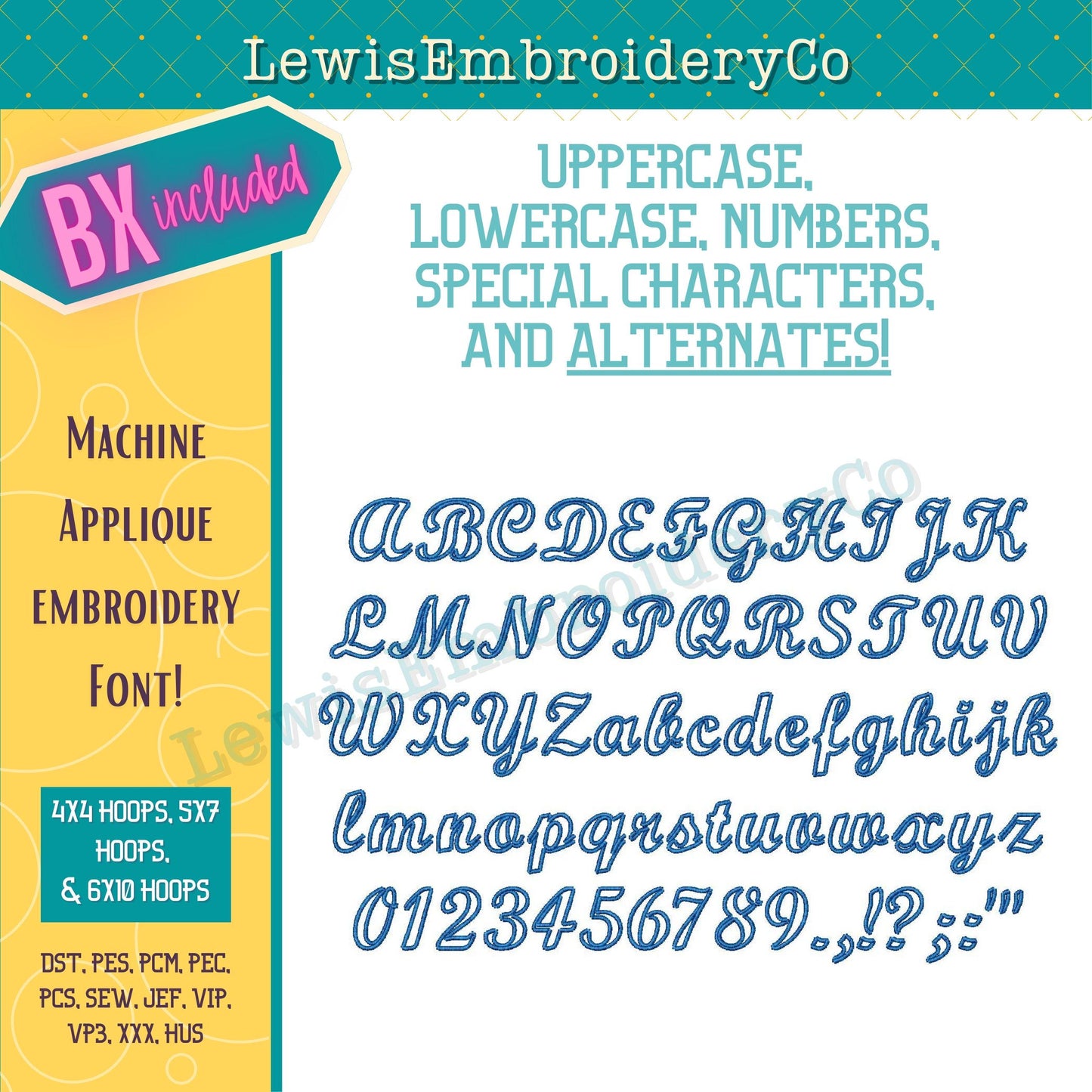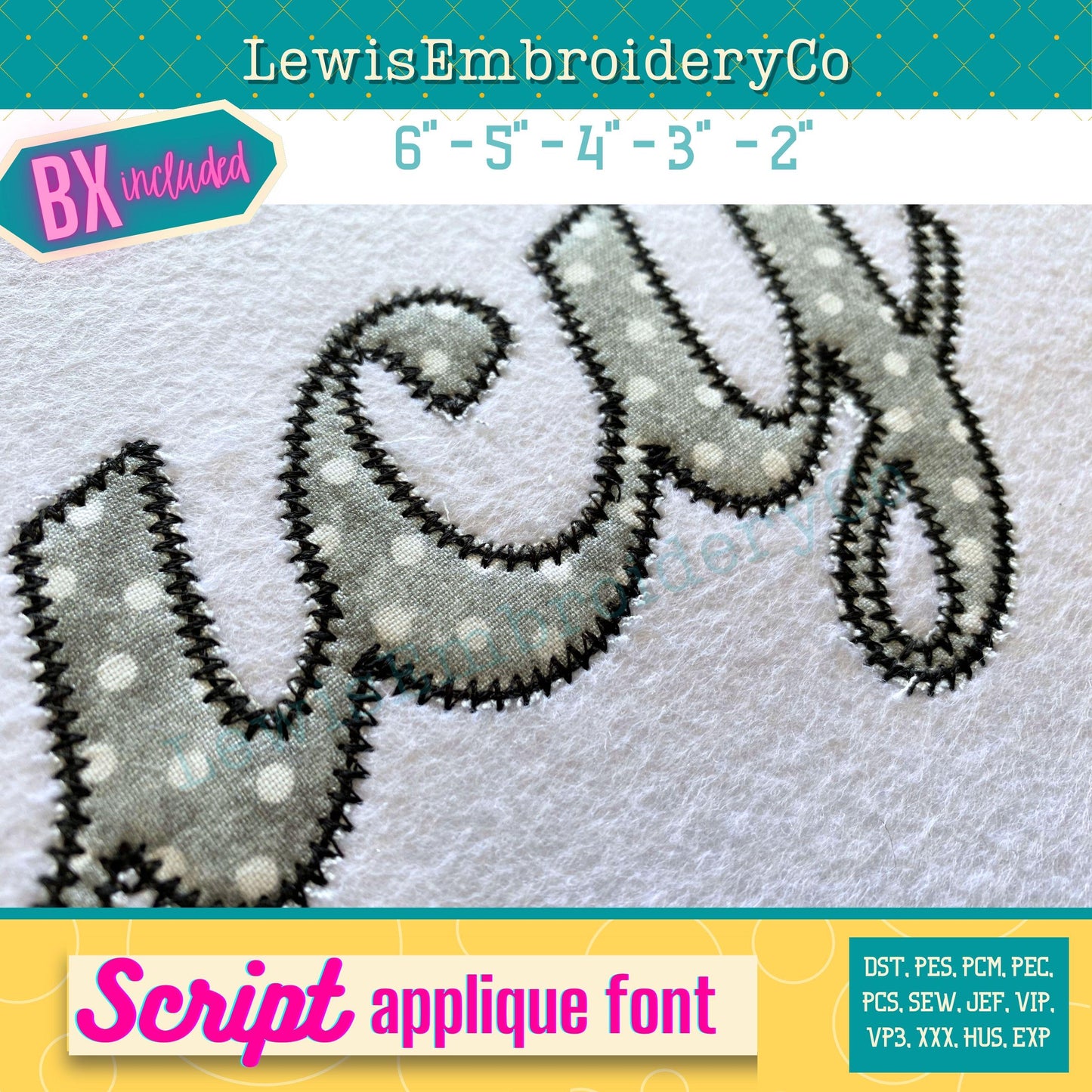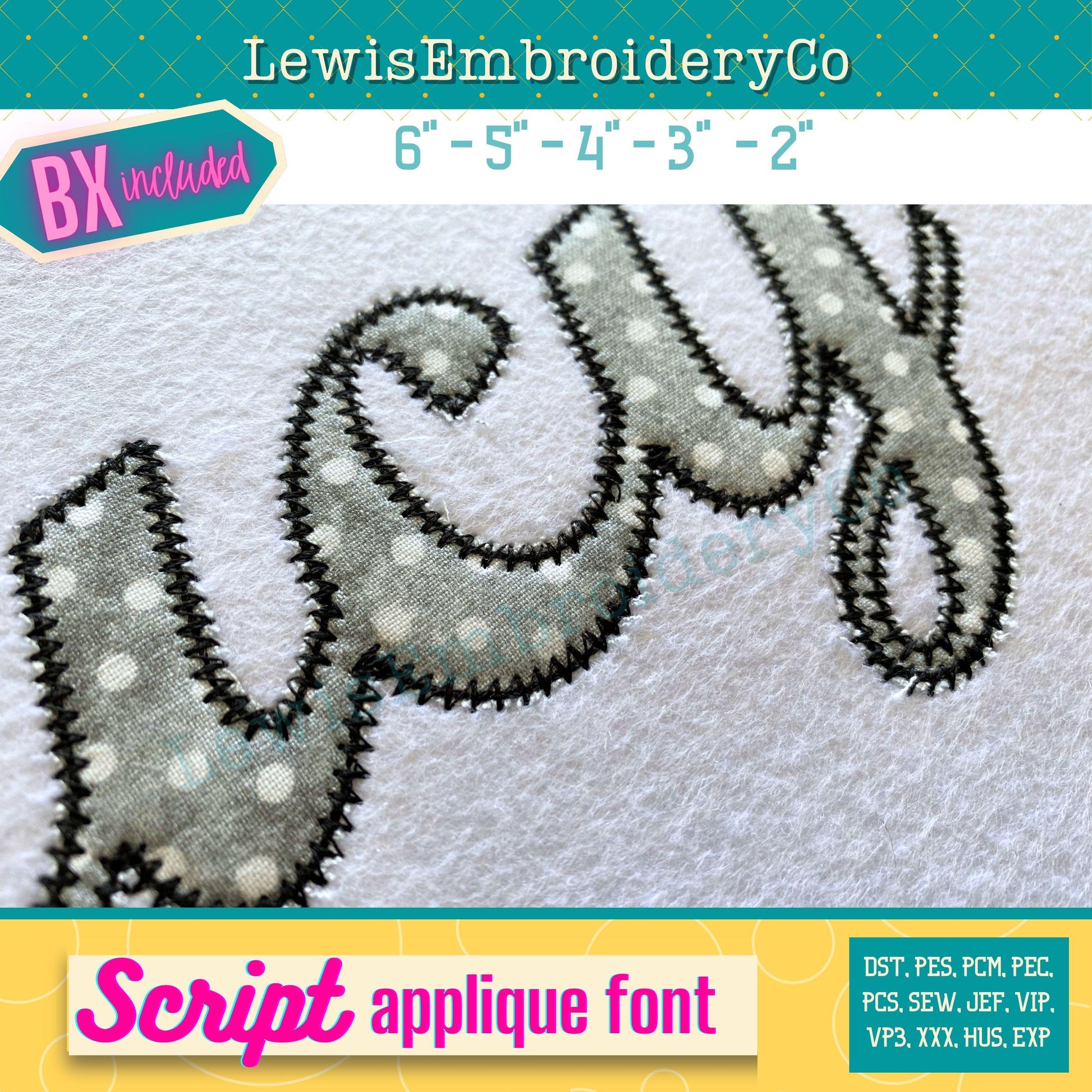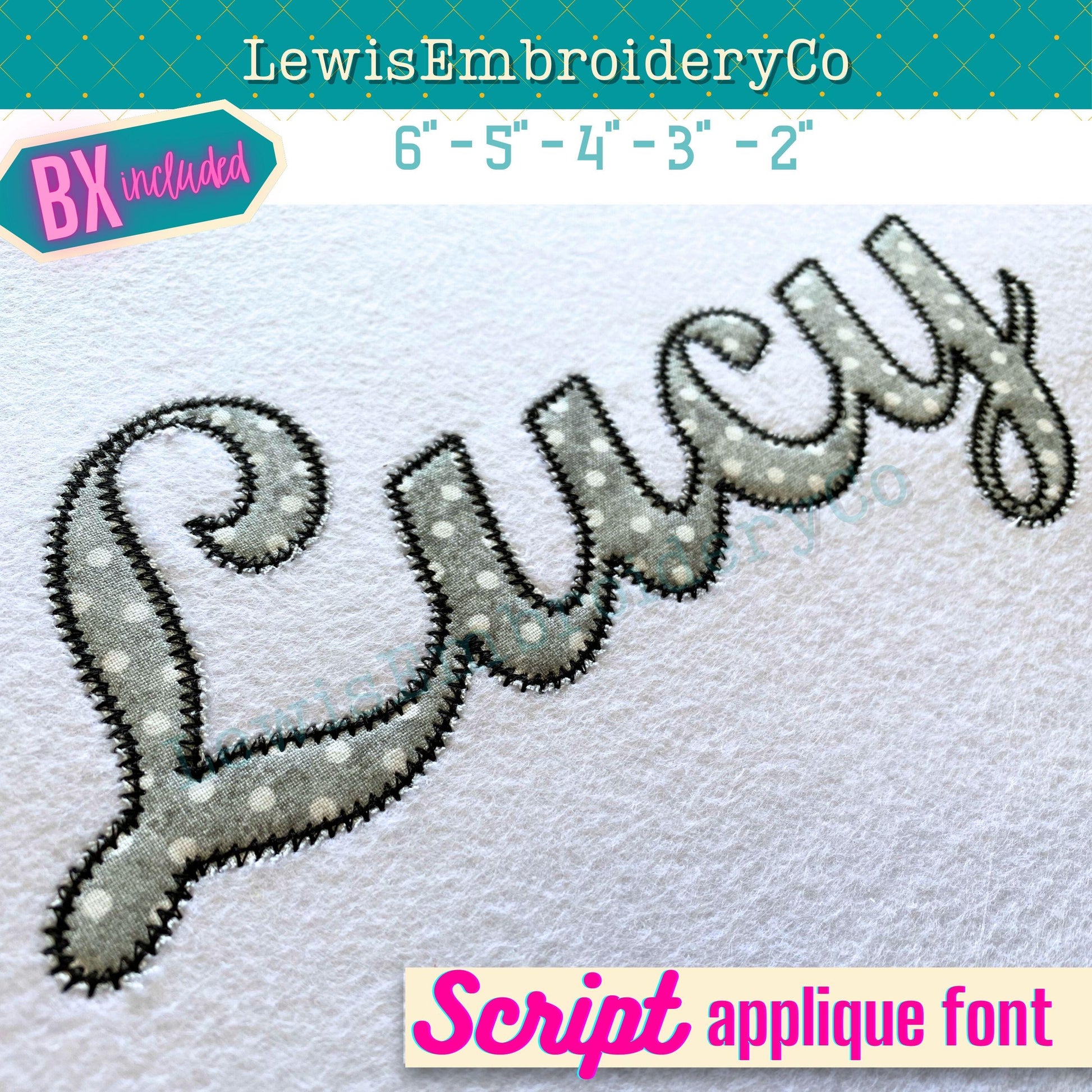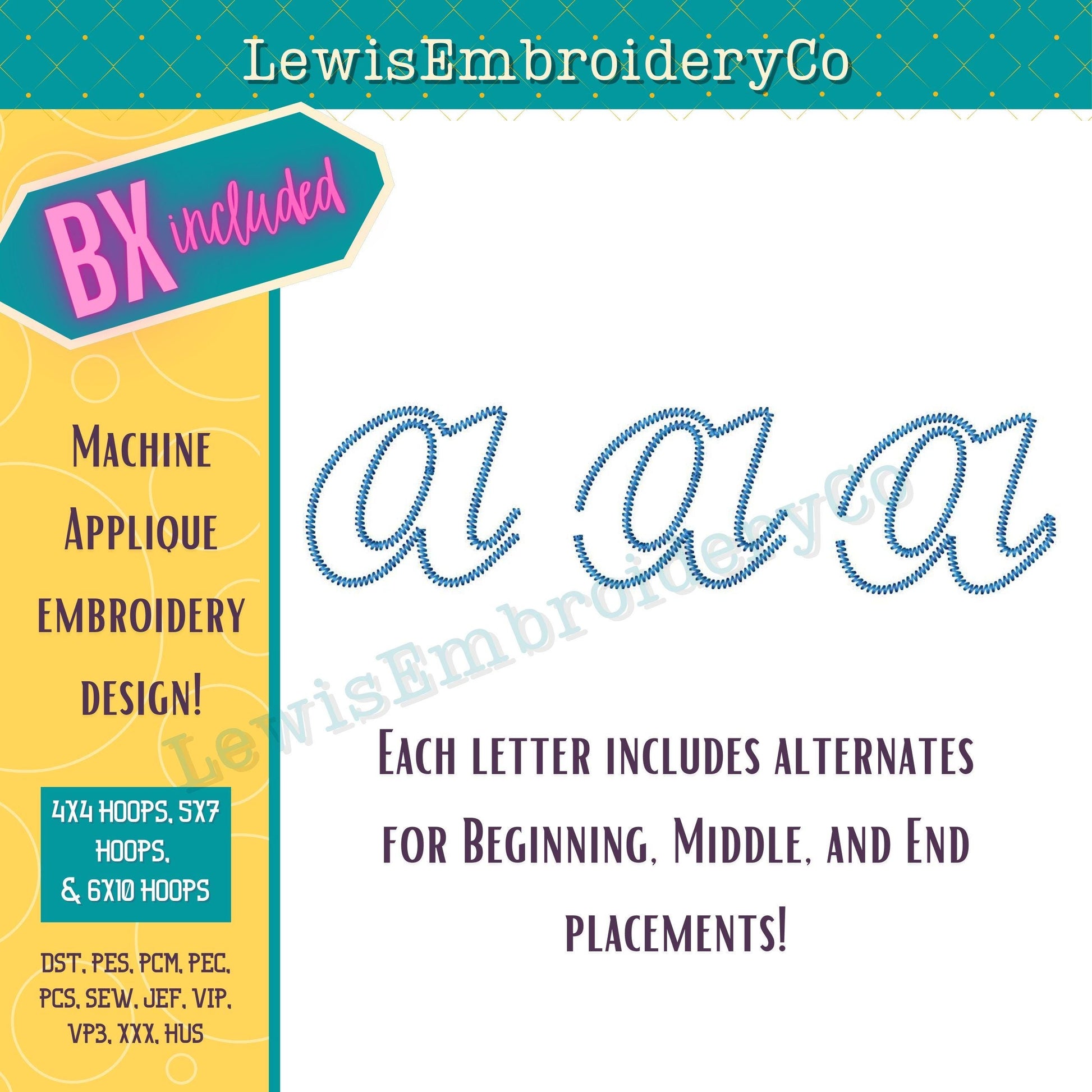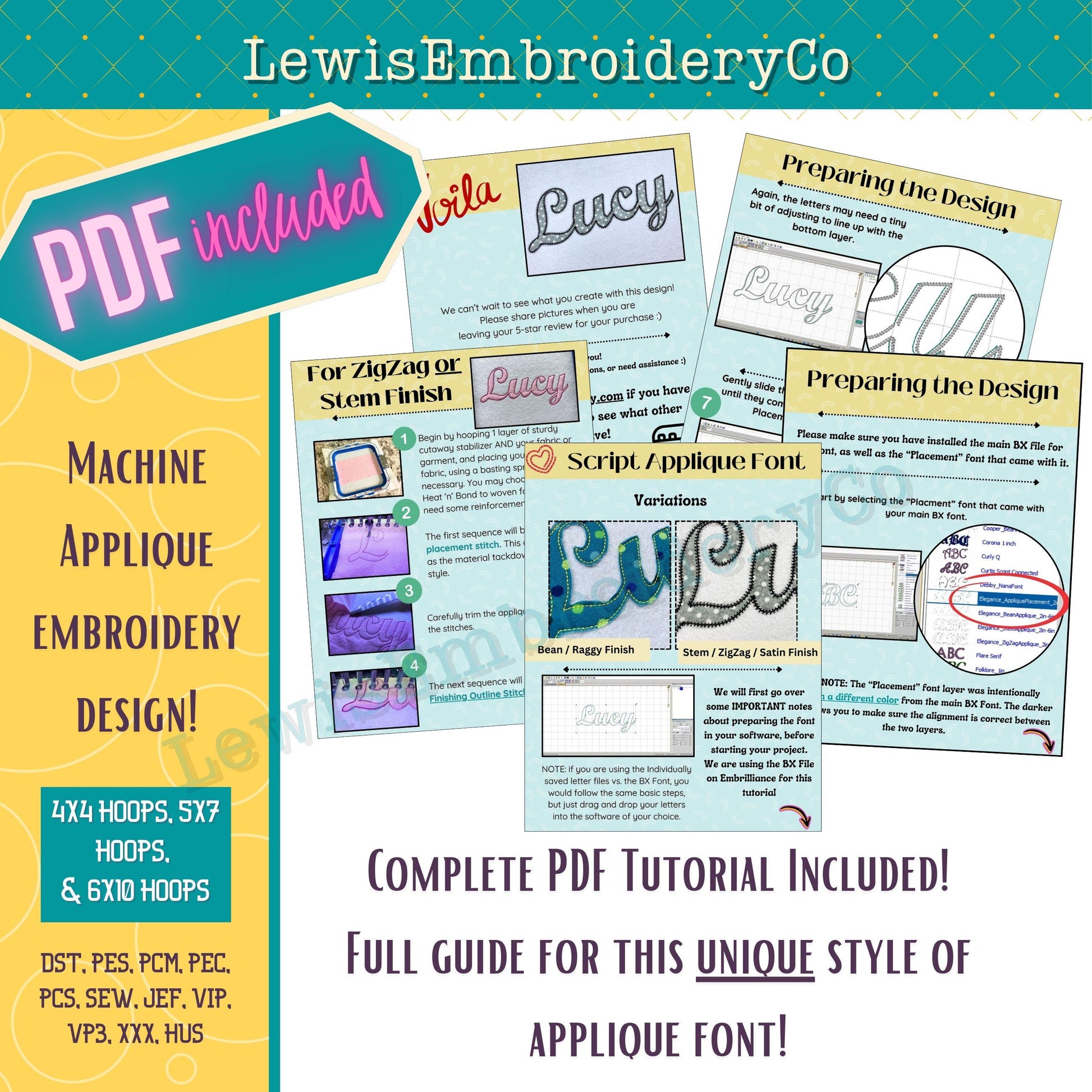
Script Applique Machine Embroidery Font - with BX - (PDF Tutorial Included)
Script Applique Embroidery Font - Cursive Applique Font - Zig Zag Applique Embroidery Font - BX Font - Cursive Machine Embroidery Font
This fun font will add a nice touch to any of your projects!